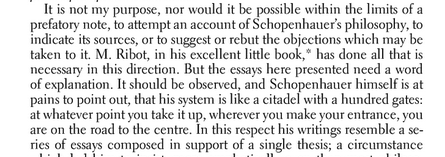
Trying to identify this font (Oxford History of the United States)
It's used in lots of academic books, but it's the standard font for the Oxford History of the United States.
Sorry, DavidH1947, but the capital R in Electra does not have the rounded top seen in the sample.
James B., your sample is too small and too low-res to be of much help in an ID. Can you at least tell us which edition and volume of the Oxford History of the United States your sample comes from (published date), or can you provide a much larger, sharper image?